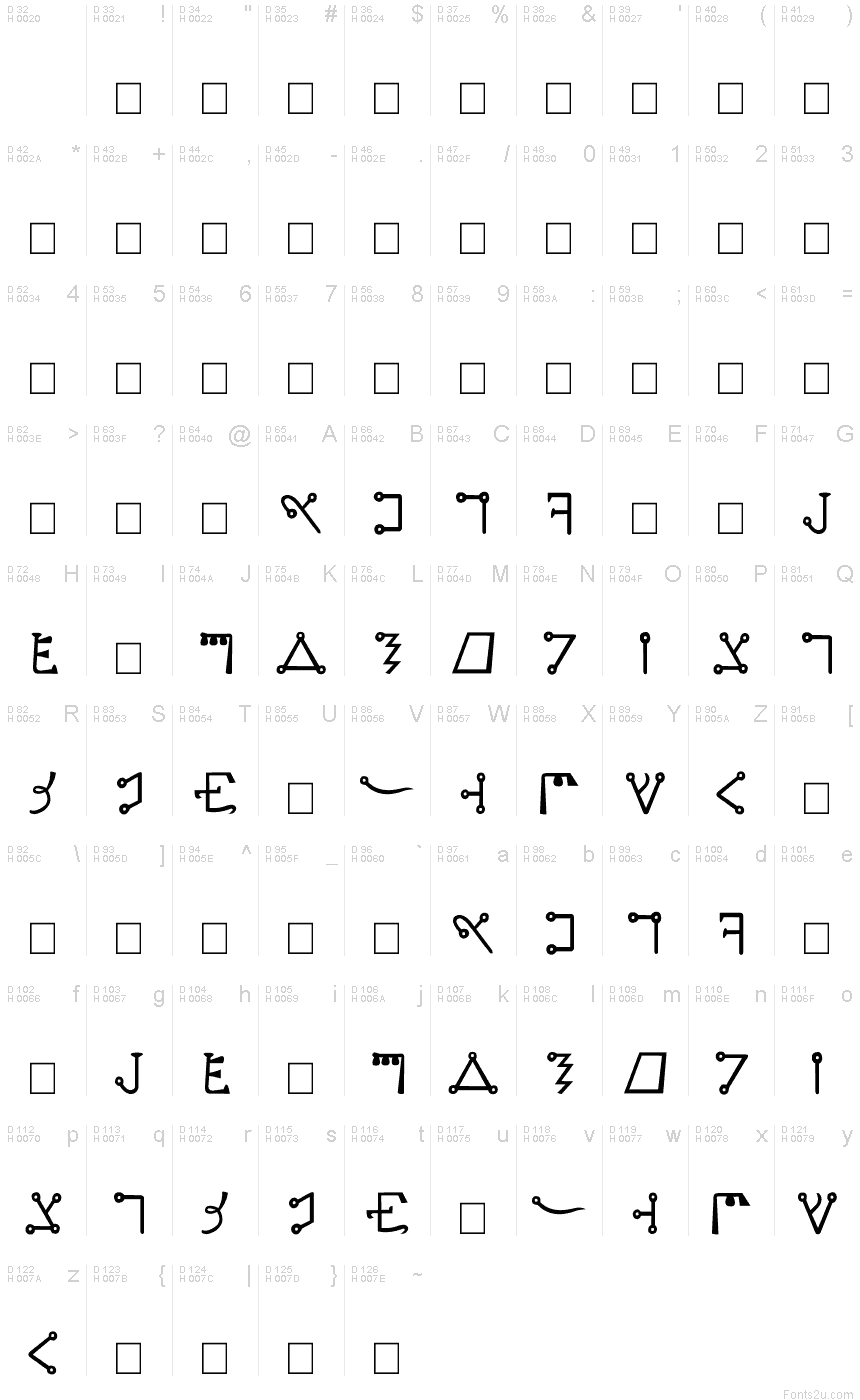
Passage du Fleuve
A medieval (circa XIIth-XVth century) occult script derived from Hebrew. The French name means "Passing the River" and is probably an allusion to Deuteronomy, Chapter II, Verses 13-16, where Moses leads Israel across the river Zered into Canaan. With the Celestial and Malachim/Angelic/Royal scripts, it forms the Seraphic family of scripts. It is currently used by some Wiccan practitioners.
Passage du Fleuve is included by Heinrich Cornelius Agrippa in Book III (Ceremonial Magic), Chapter XXX («Another manner of making Characters, delivered by Cabalists») of his De Occulta Philosophia (written in 1509 and first printed in 1533), unfortunately without mentioning any details. Francis Barrett derived the alphabet from Agrippa, along with much of the text of Agrippa's book, and presented it in his «The Magus: A Complete System of Occult Philosophy», published in 1801.